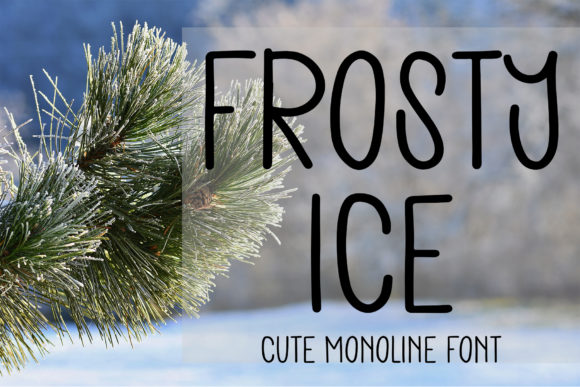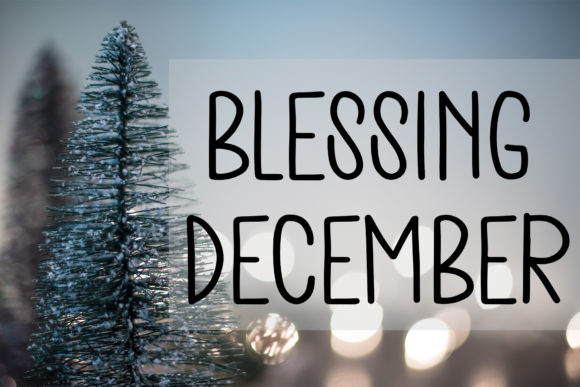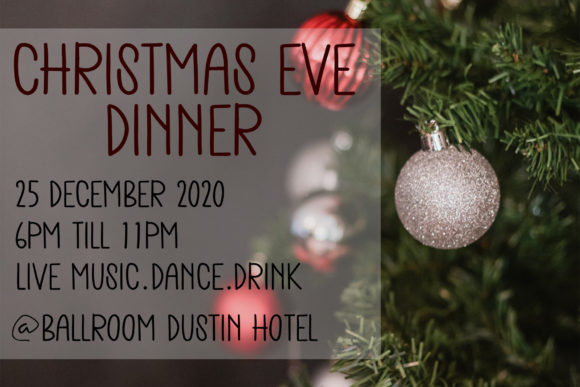
About Frosty Ice Font
Introducing Frosty Ice: The Cute, Thin, and Tall-Lettered Handwritten Font
Step into a world of cuteness and charm with Frosty Ice, a handwritten font that exudes a delightful and playful vibe. With its thin and tall lettered style, Frosty Ice adds a touch of elegance and uniqueness to your designs. Embrace the clean and smooth vibe of Frosty Ice as you infuse your projects with a sense of sophistication and creativity. Watch as this font becomes a hit for any design you wish to add it to!
Frosty Ice’s cute and thin appeal brings a sense of charm and elegance to your designs. Its handwritten letterforms flow with a seamless beauty, making your text exude a delightful and playful energy.
As a font that stands tall with its uniqueness, Frosty Ice becomes the go-to choice for projects that demand a touch of creativity and elegance. Its thin lettering ensures that your work resonates with a clean and refined look.
Embrace the sophistication of Frosty Ice as you embark on your creative journey. Let it be the font that elevates your designs, adding a sense of charm and creativity in every project.
As you explore the possibilities of Frosty Ice, you’ll find it to be a font that enhances your designs with ease. Its cute and tall-lettered handwritten beauty transforms your work, ensuring that your creations leave a lasting impression.
So, let Frosty Ice be the font that adds a touch of playfulness and elegance to your designs. Embrace its thin and unique style, and watch as your projects come alive with a sense of delightful allure. With Frosty Ice as your go-to font, your designs will resonate with sophistication and charm, captivating your audience and leaving a lasting impression. Embrace the cuteness of Frosty Ice and create designs that are truly delightful and unforgettable!